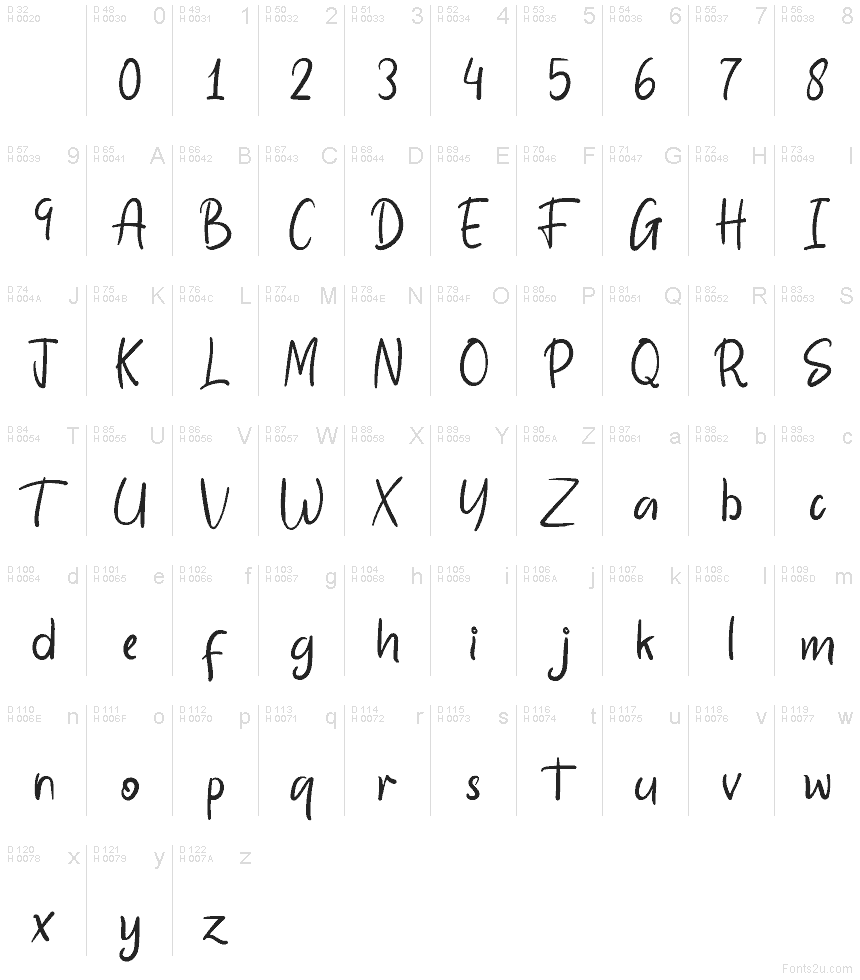
Bigetons Regular
Bigetons font by Tezar Tantular is a playful brush font that captures the feel of handwritten script along with an organic aesthetic. Its casual, friendly approach combines a modern touch where emphasis are on legibility. The result is attractive letters that are easy both to read and skim. A true favorite for every occasion!